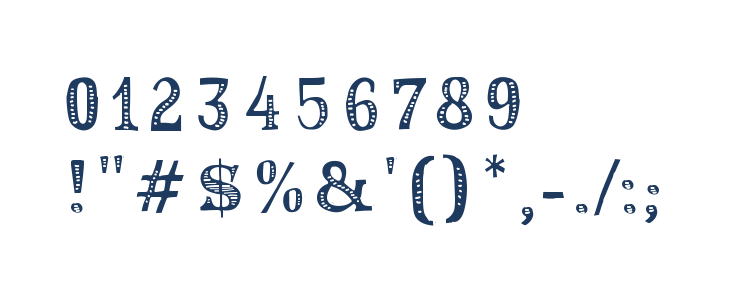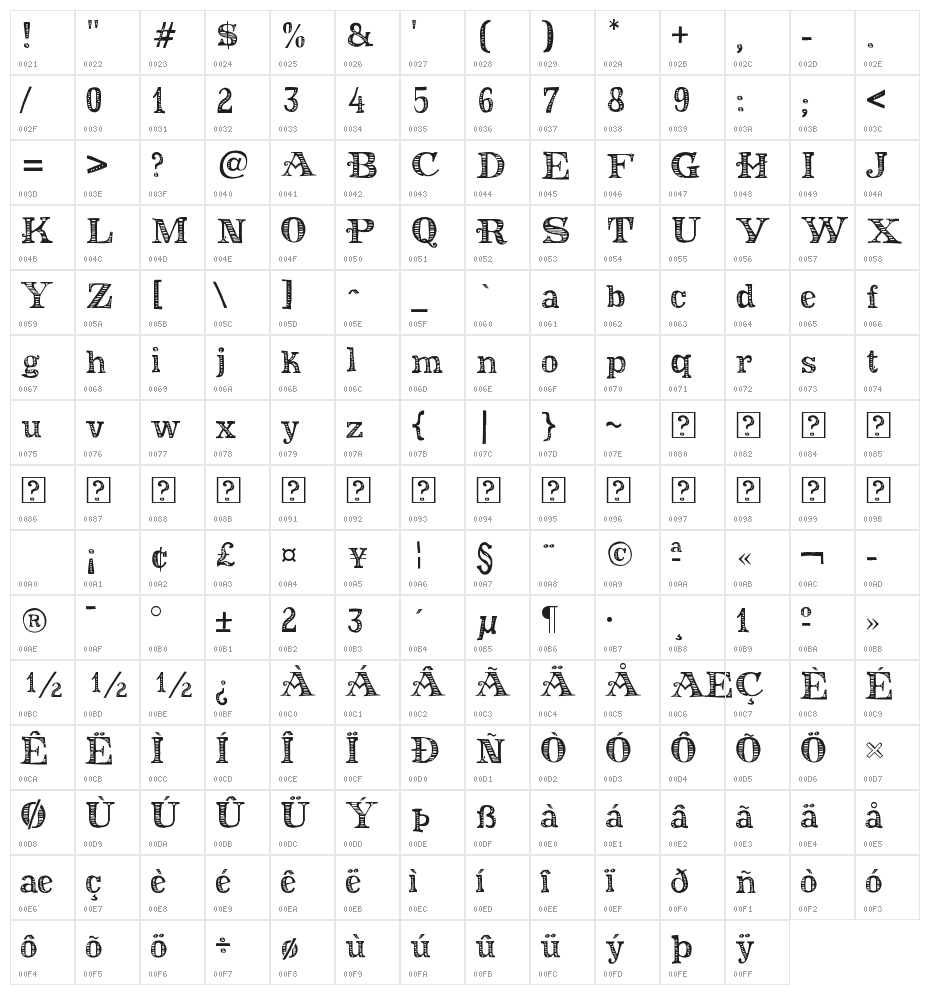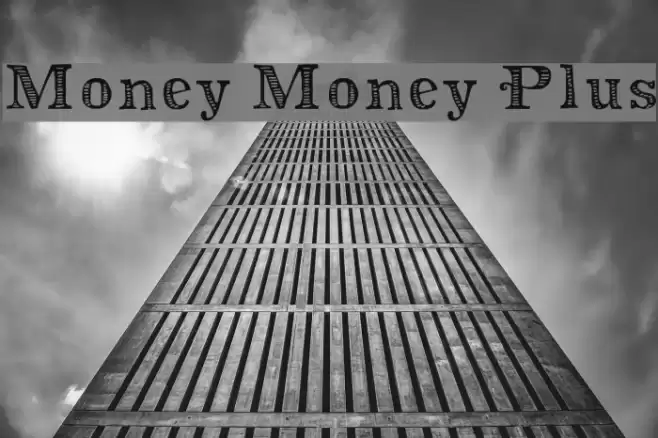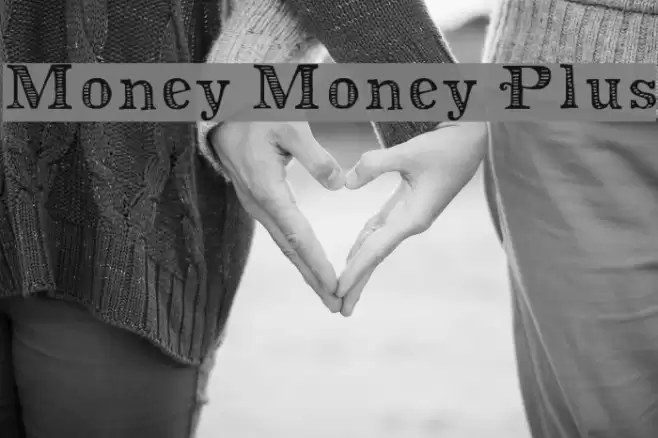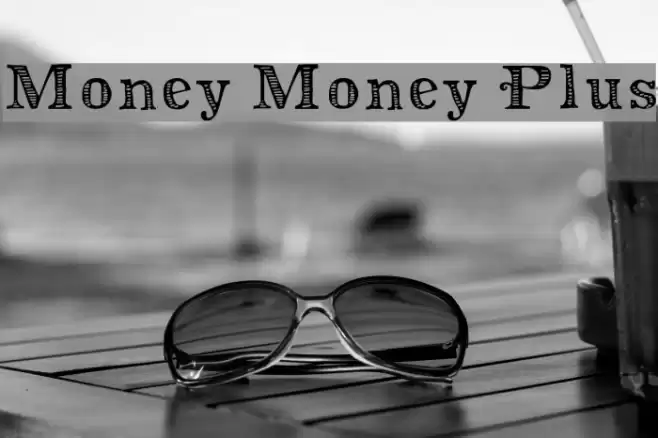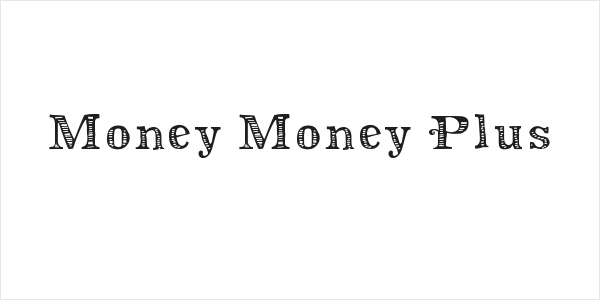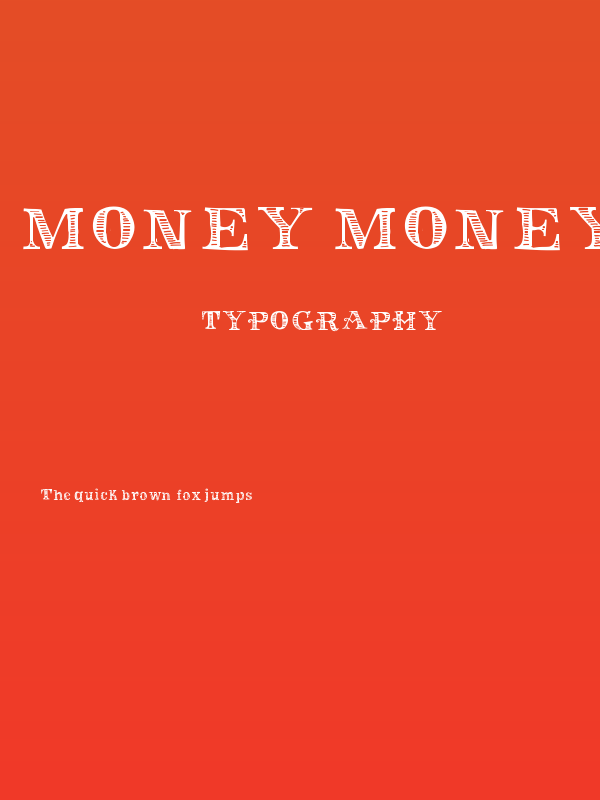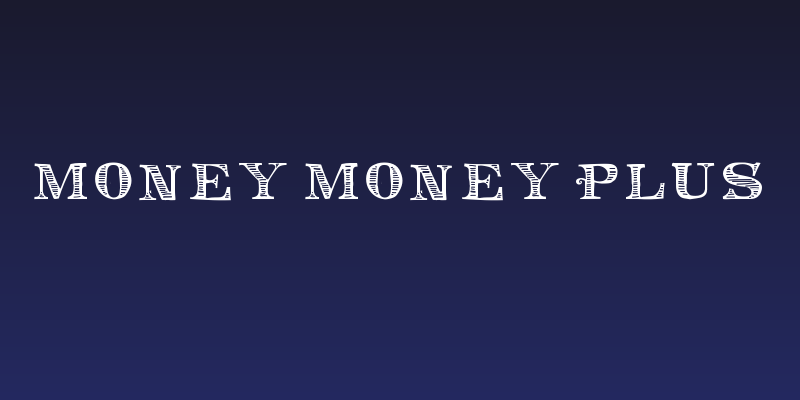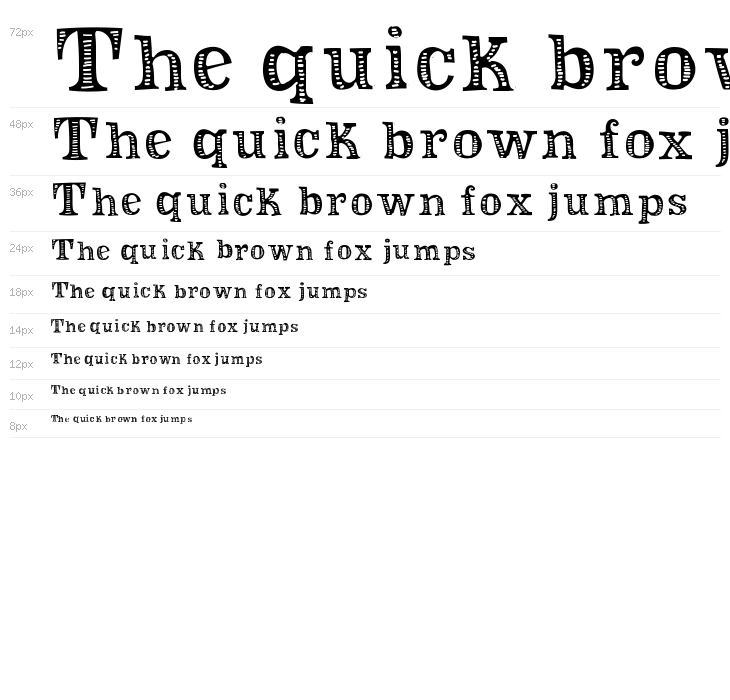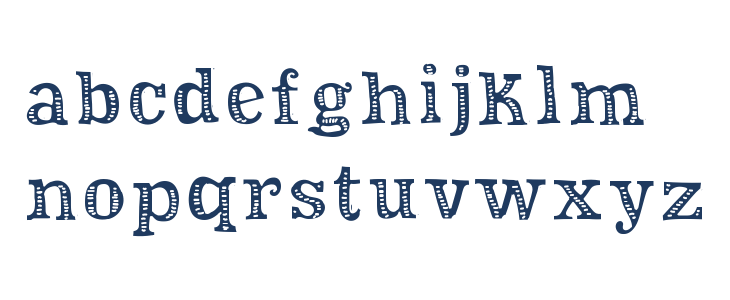
Money Money Plus Font
Money Money Plus Description
This font features a playful and decorative style with a unique blend of vintage and modern elements. Each character is adorned with intricate patterns and dots, creating a whimsical and eye-catching appearance. The uppercase letters have a bold presence, while the lowercase letters maintain a consistent style, enhancing readability. The numerals and special characters follow the same decorative theme, making the font suitable for creative and artistic projects. The overall design is reminiscent of old-fashioned circus or carnival typography, adding a touch of nostalgia and fun.
| Overall Style | Vintage, Decorative |
| Proposed Projects | Ideal for posters, invitations, branding, and any project requiring a whimsical and vintage touch. |